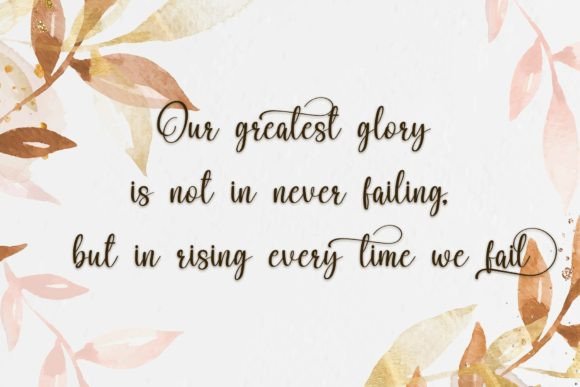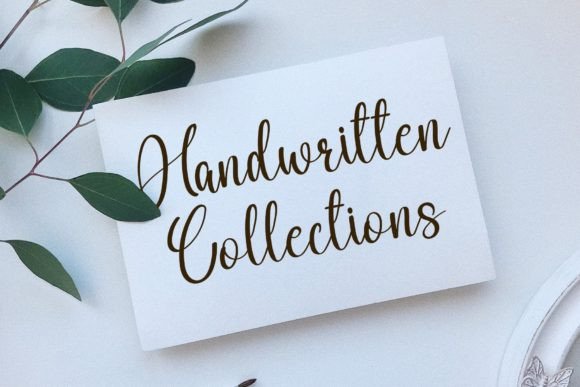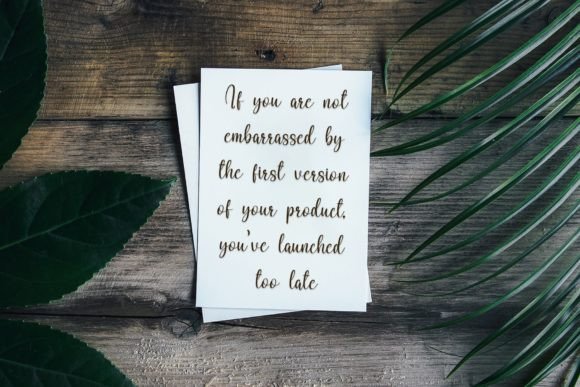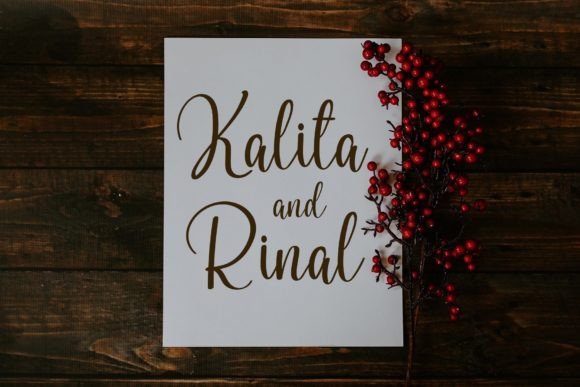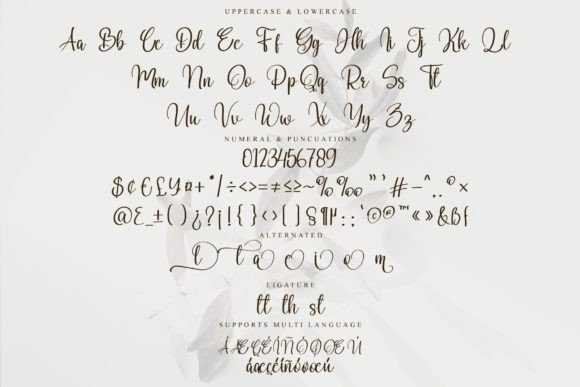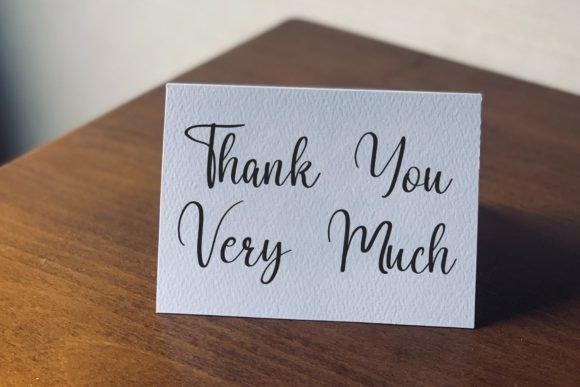
Whale Font
About Whale Font
“Whale” is a delightful and versatile handwritten font that exudes warmth, romance, and joy. Its sweet, round, and flexible design adds a charming touch to any creative project, turning your ideas into genuine works of art. With its playful and romantic vibe, this font captures the essence of creativity and imagination, making it an excellent choice for a wide range of applications.
The font’s PUA encoding ensures easy access to all glyphs and swashes, allowing you to customize your designs with ease. Whether you’re working on greeting cards, wedding invitations, social media posts, or any other project, “Whale” infuses your creations with a sense of sweetness and cheerfulness. Its versatility enables it to adapt to various themes and styles, making it a valuable asset in your design toolkit.
Embrace the warm and jolly spirit of “Whale” to bring a touch of romance and playfulness to your projects. Let its round and friendly characters create a delightful atmosphere, making your designs stand out and resonate with your audience. With this font, your creative endeavors will come to life, transforming ordinary ideas into extraordinary artworks filled with charm and happiness.